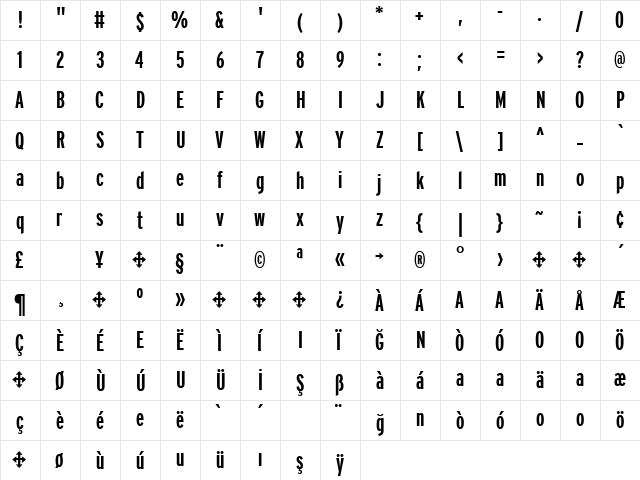
intelstateboldcompressed Regular Font Preview
intelstateboldcompressed Regular
intelstateboldcompressed Regular Font Details
Design Context for intelstateboldcompressed Typeface
intelstateboldcompressed is a composed and adaptable typeface that performs quietly and consistently across a wide range of design contexts. The heavy weight commands attention and anchors typographic hierarchies.